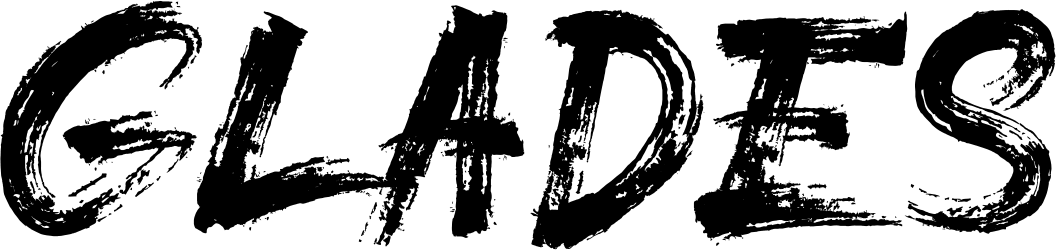
Glades Font
Go with a brush font and level up your text design. Glades can be perfect for when you need to add an artistic and also aggressive touch to your text layout. It can be utilized for logos, branding, bag shops, and so on.…
Go with a brush font and level up your text design. Glades can be perfect for when you need to add an artistic and also aggressive touch to your text layout. It can be utilized for logos, branding, bag shops, and so on. Keep in mind that this case doesn’t offer lowercase letters and punctuation.
Font: Glades
Type: Bold Typeface– Bold typeface with special brush effect
– Available in uppercase and lowercase